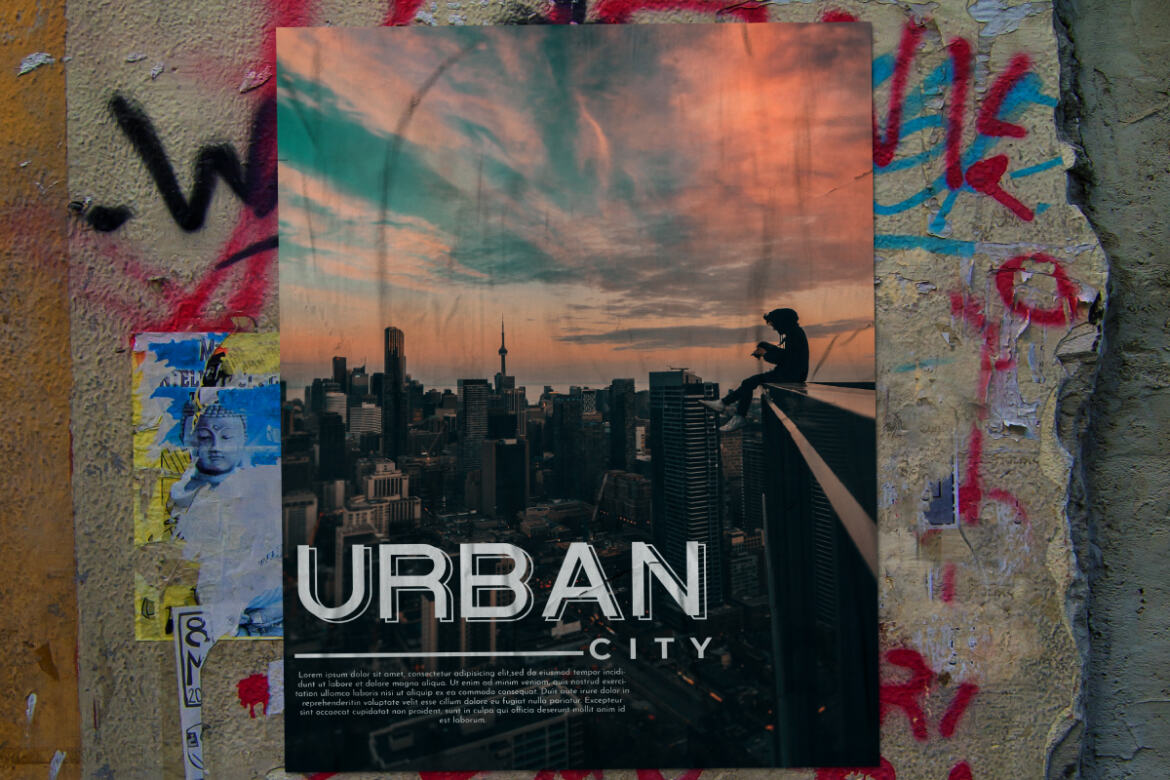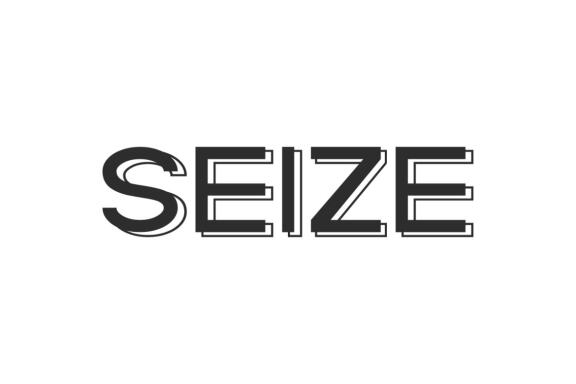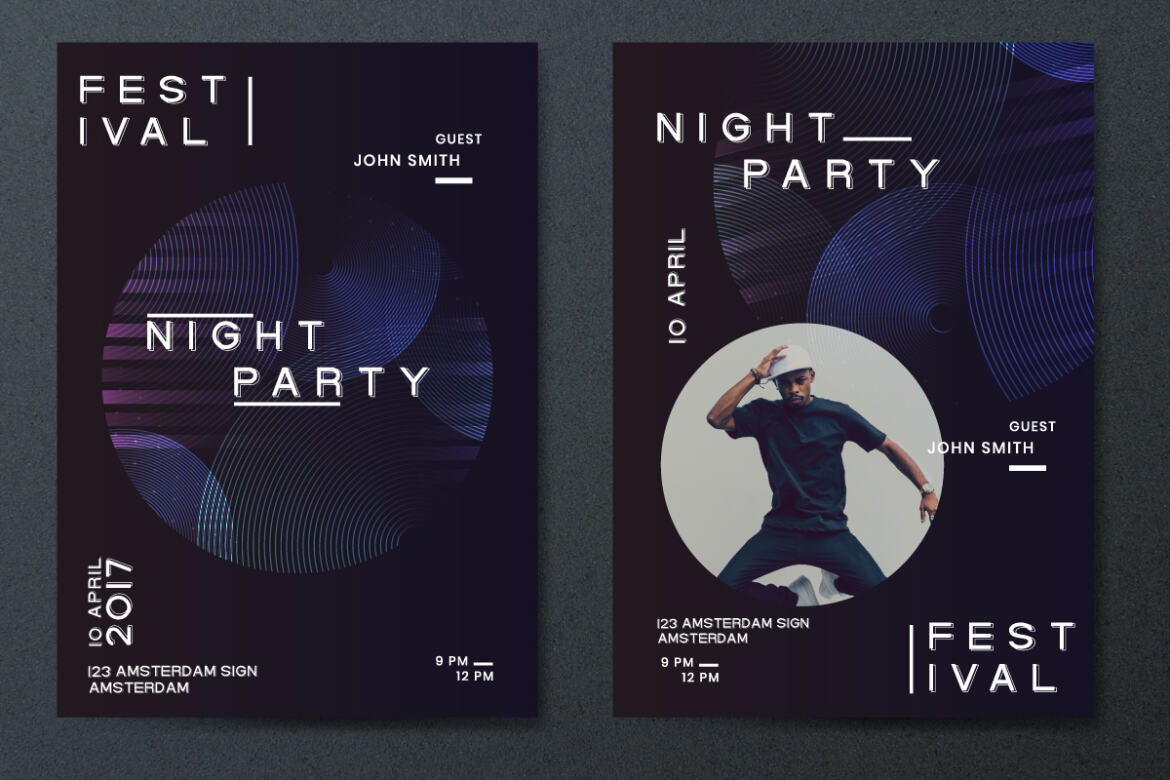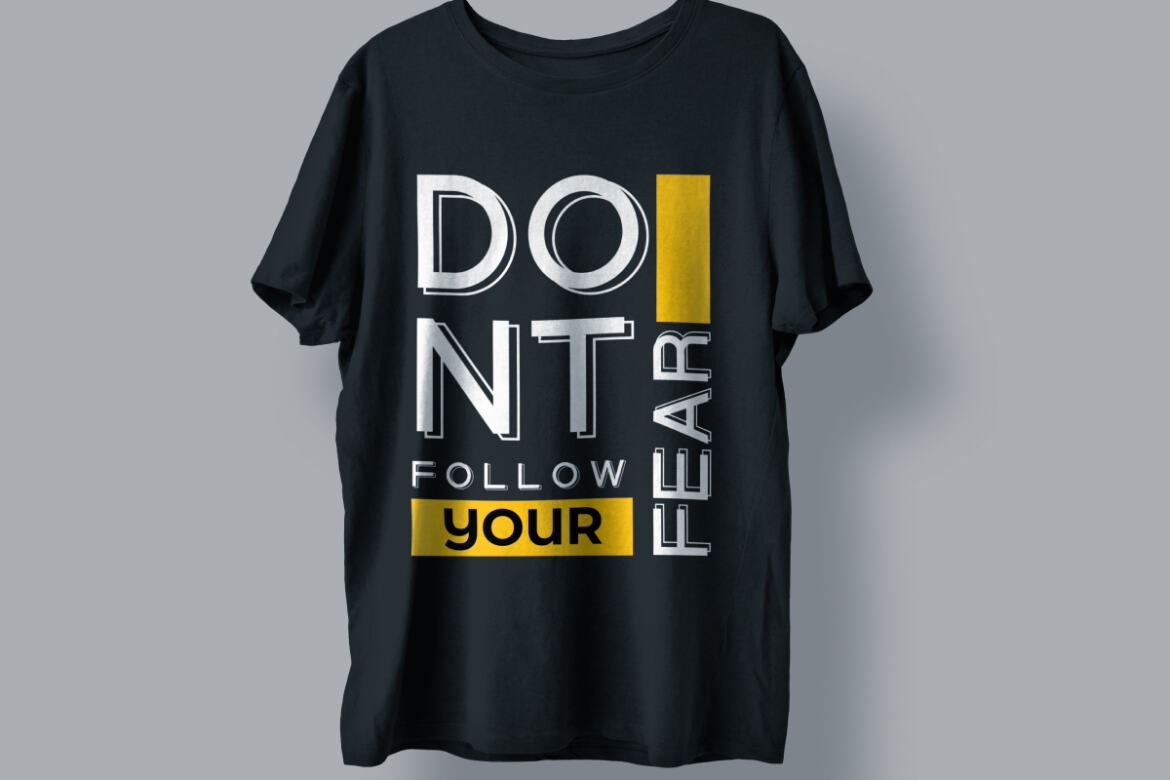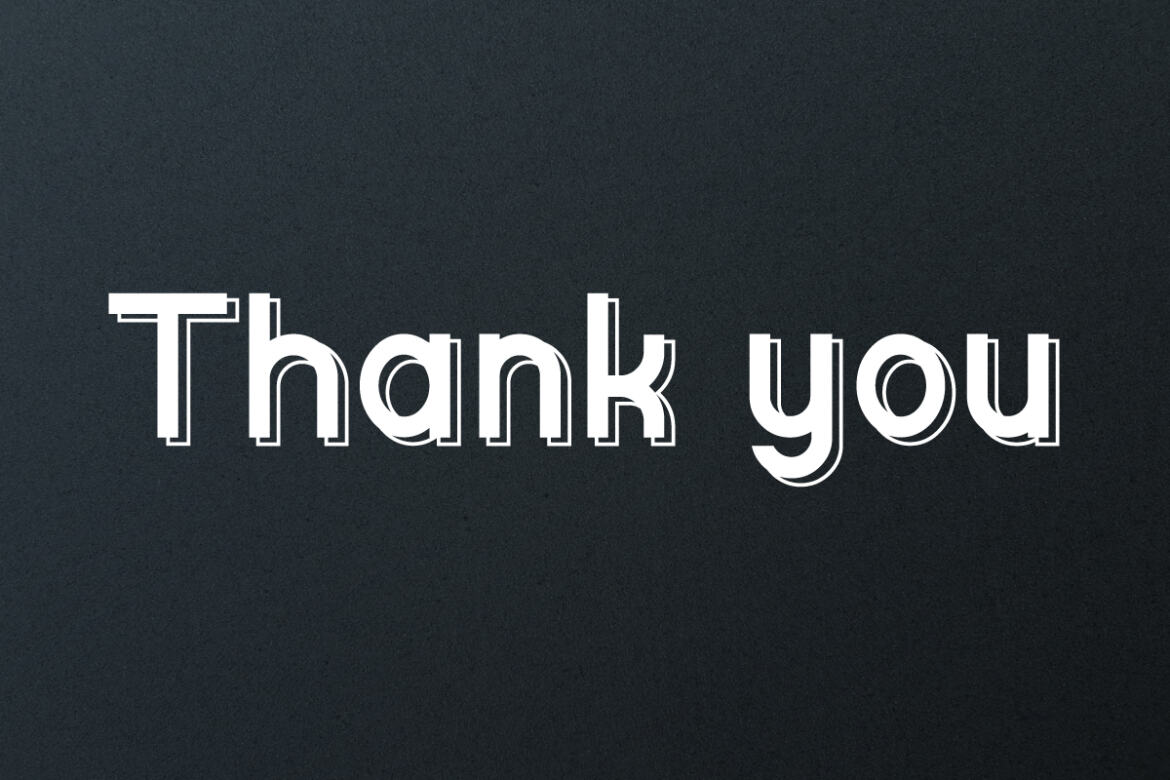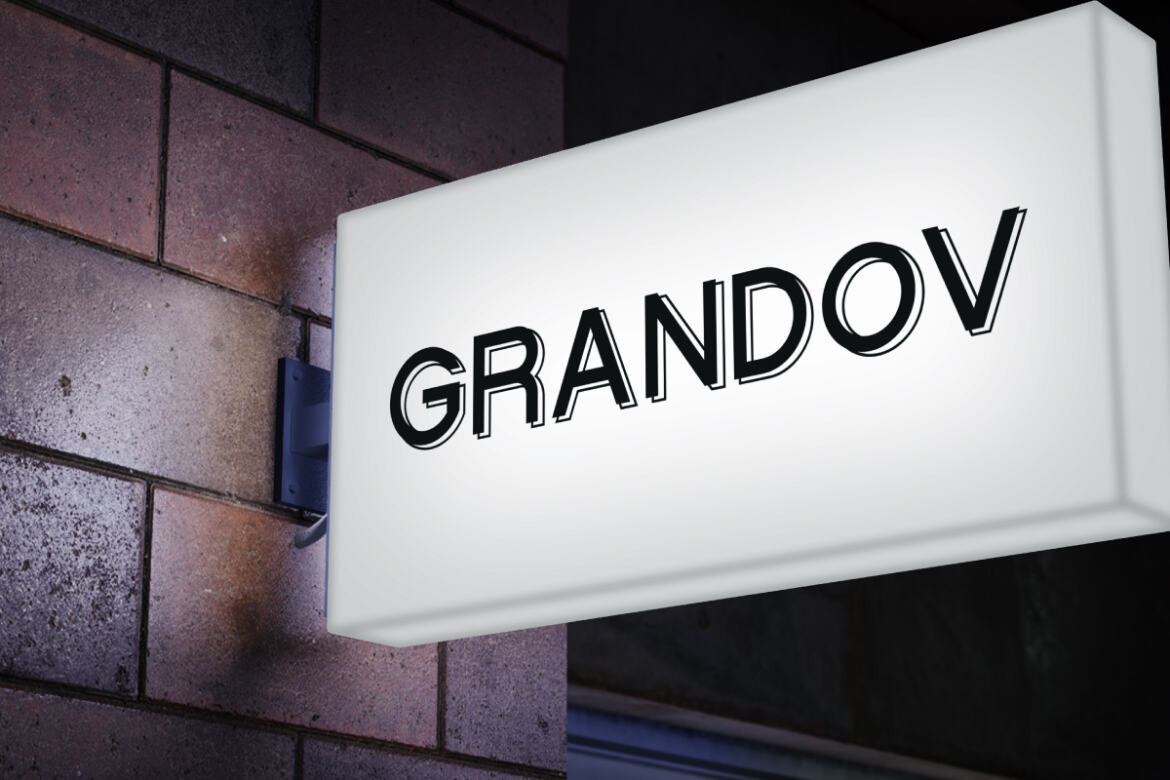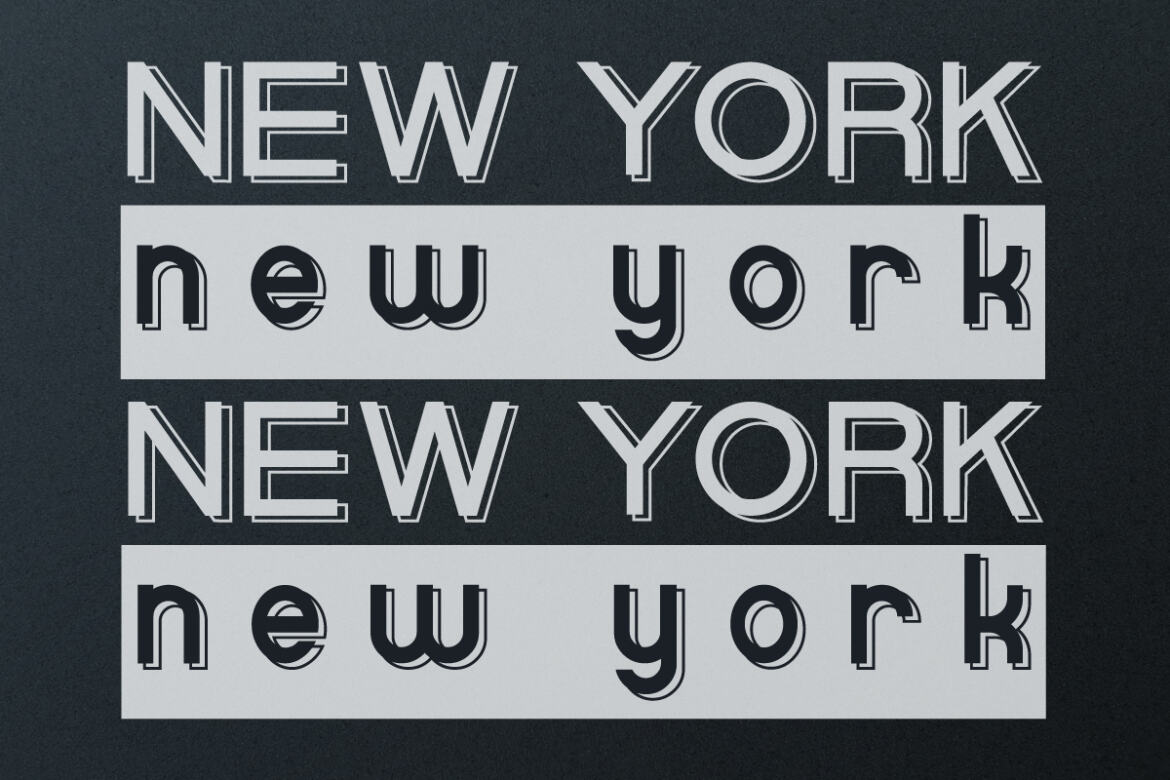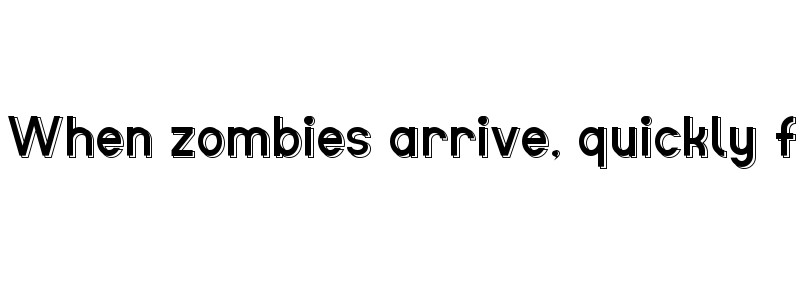
Seize FREE Font
Seize Font is great for any projects (require extended license) including : branding, logo, stationery, business card, signage, flyer, brochure etc. Handcrafted here in  Indonesia, Seize Font comes with unique shapes and exclusive shadow effect to make it standout. Seize Font had been tested Work on PC & Mac. This font has a stunning characters set, perfectly managed with well spaced and kerning.  Accessible in the Adobe Illustrator, Adobe Photoshop, Adobe InDesign, even work on Microsoft Word. It’s also PUA Encoded Characters – Fully accessible without additional design software.